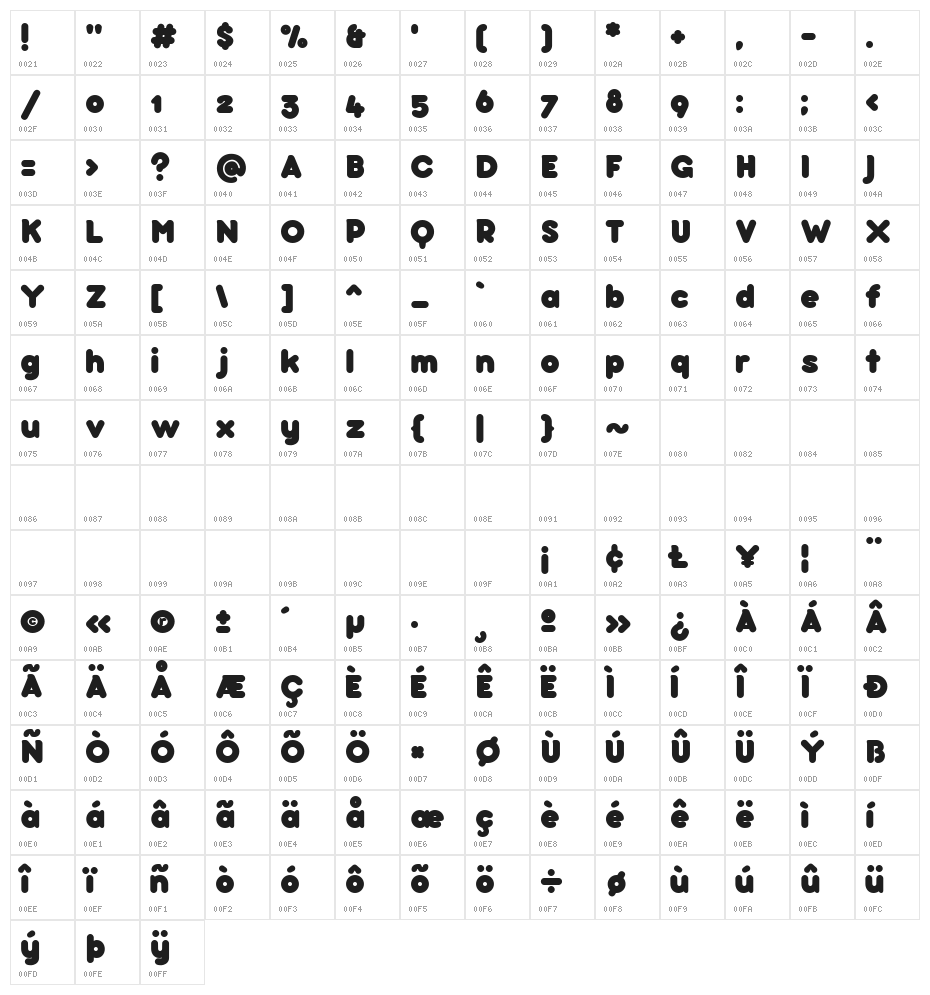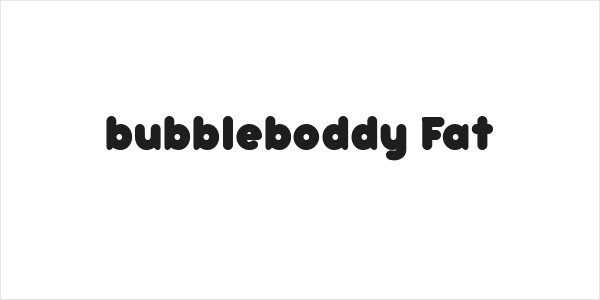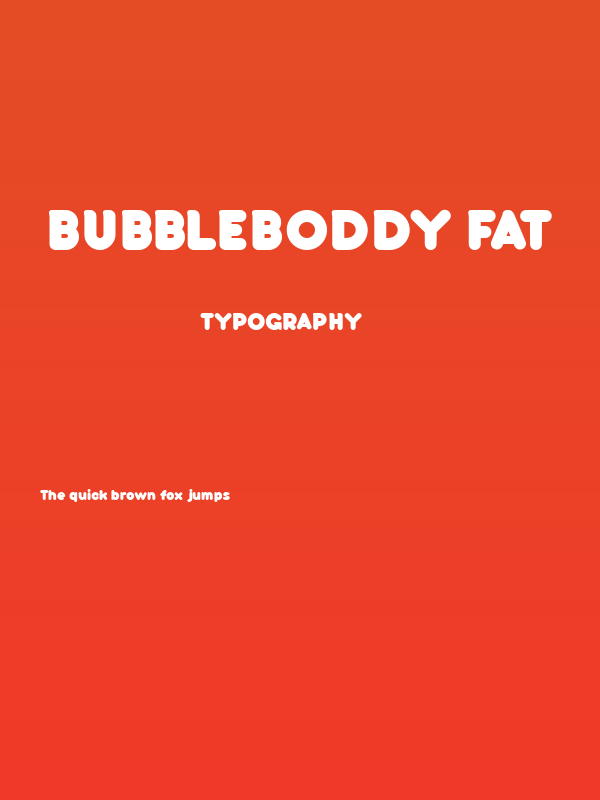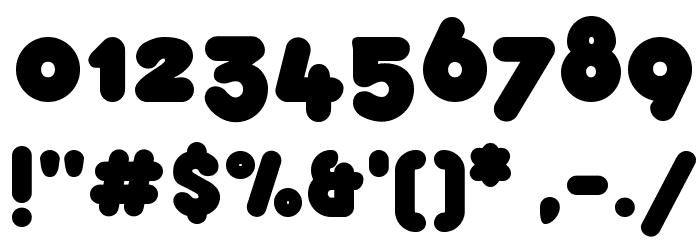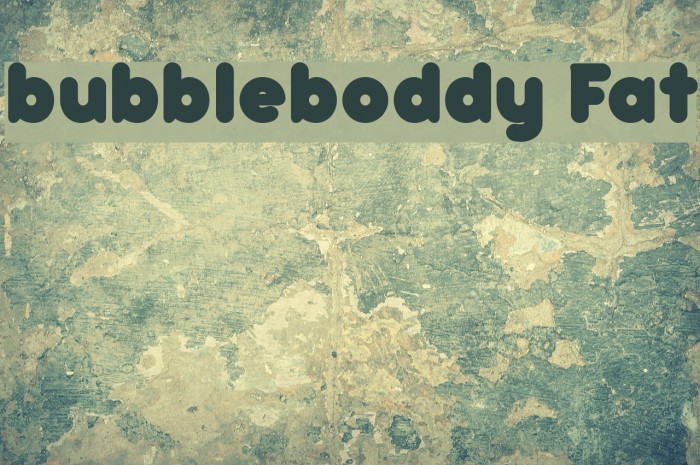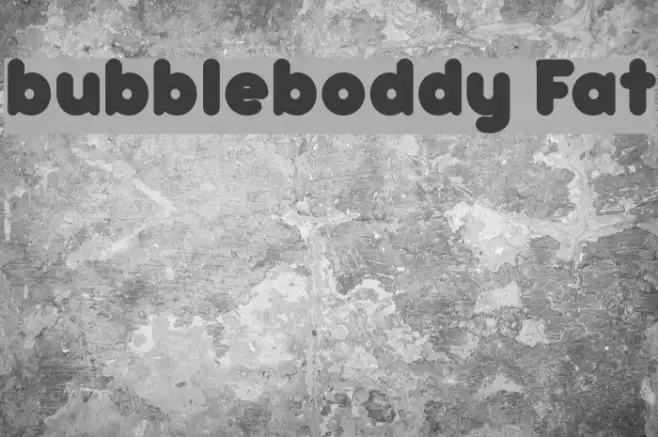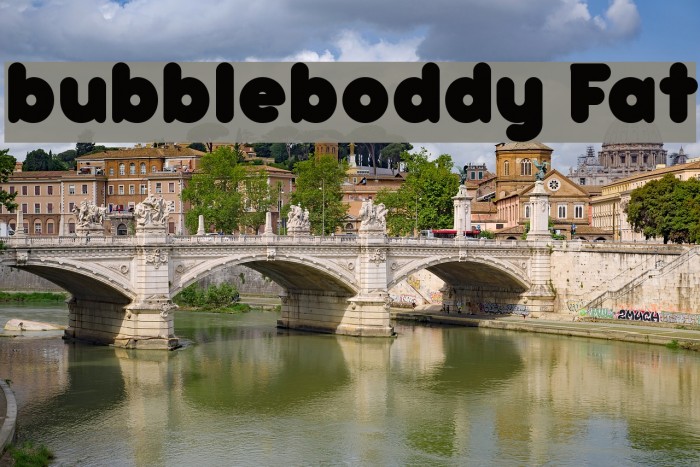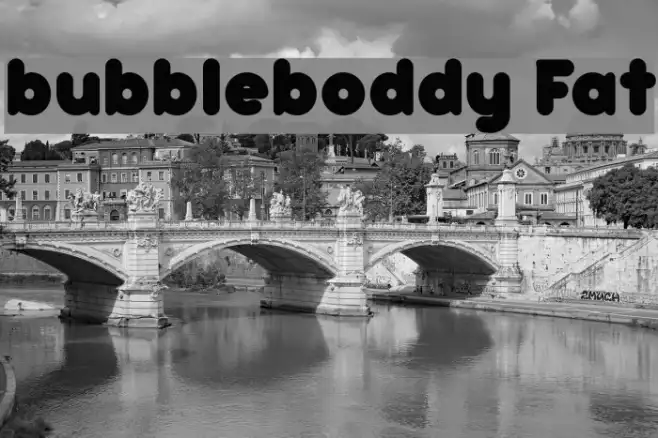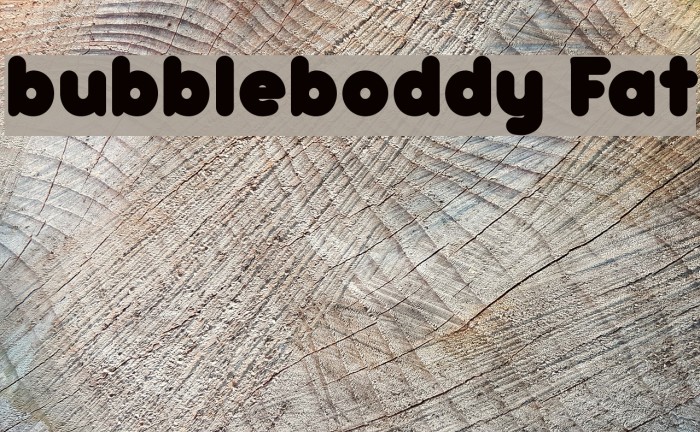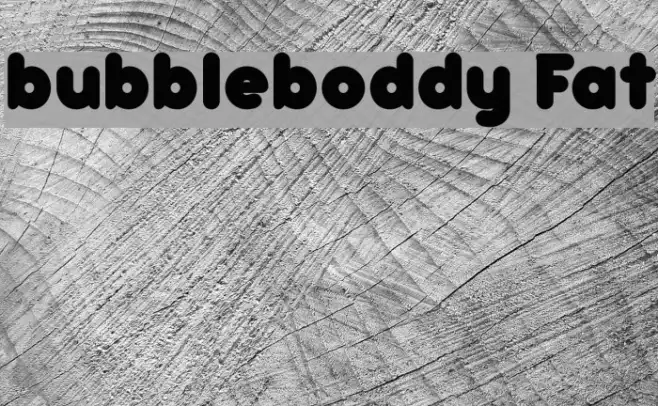
bubbleboddy Fat Font
bubbleboddy Fat Description
This font features a playful and bold design, characterized by its rounded and bubbly letterforms. The characters are thick and uniform, creating a sense of fun and whimsy. The overall appearance is soft and approachable, making it ideal for projects that aim to convey a friendly and informal tone. The letters are evenly spaced, contributing to a clean and cohesive look. This style is particularly effective in capturing attention due to its distinctive and eye-catching nature.
| Overall Style | Playful |
| Proposed Projects | Ideal for children's books, playful branding, party invitations, and casual posters. |